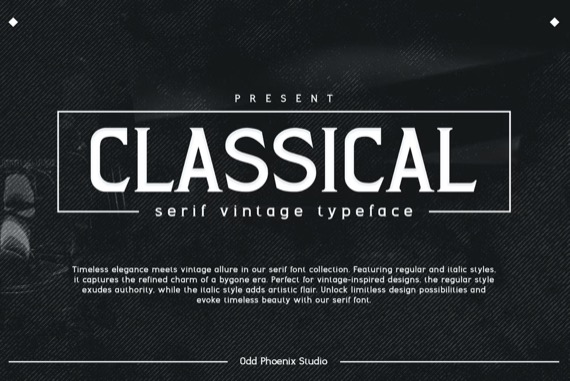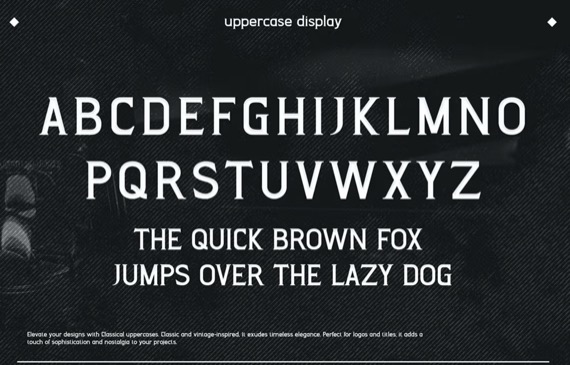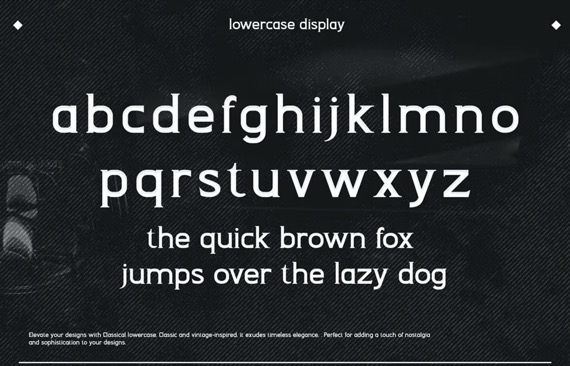
Presenting a vintage and familiar display font, Classical is a vintage-inspired classic serif font with regular and italic styles. It exudes a timeless and elegant charm. Perfect for vintage designs and adds an artistic touch. Unlimited design flexibility with this collection.
Classical Display Serif Font